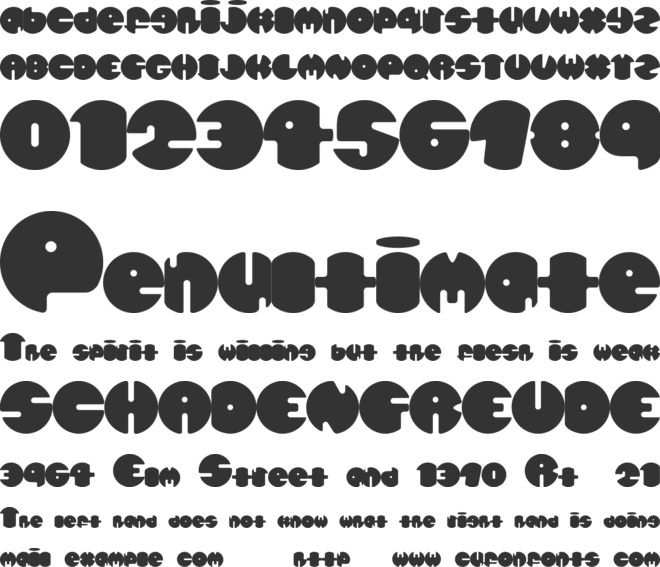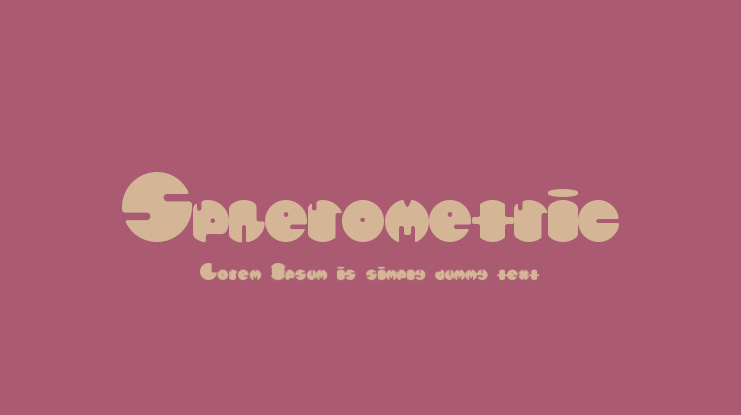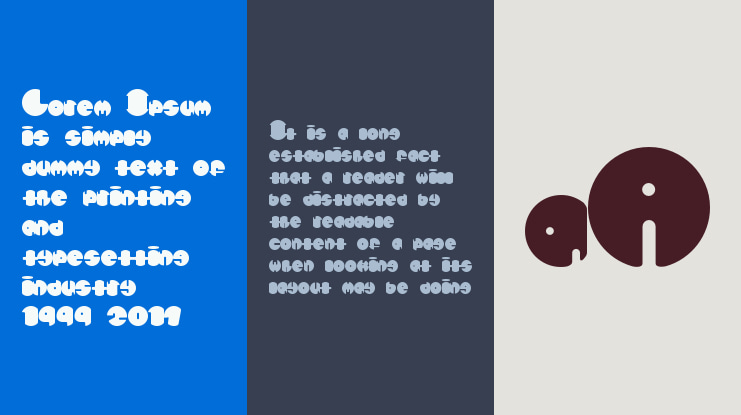
Spherometric Font
Daryl J Stone
Spherometric is inspired by a blend of old new typographic styles. The bold, bubbly style of the psychedelic sixties fused with the strict geometry that has dominated typography for over a decade.